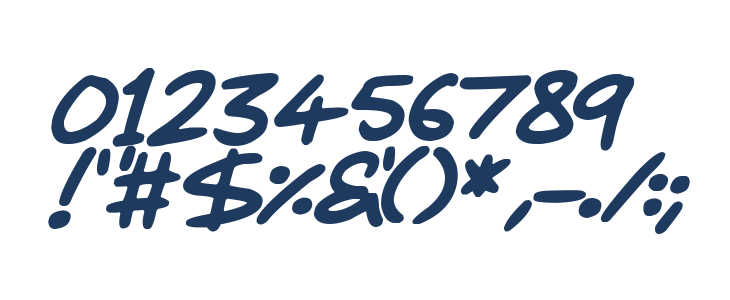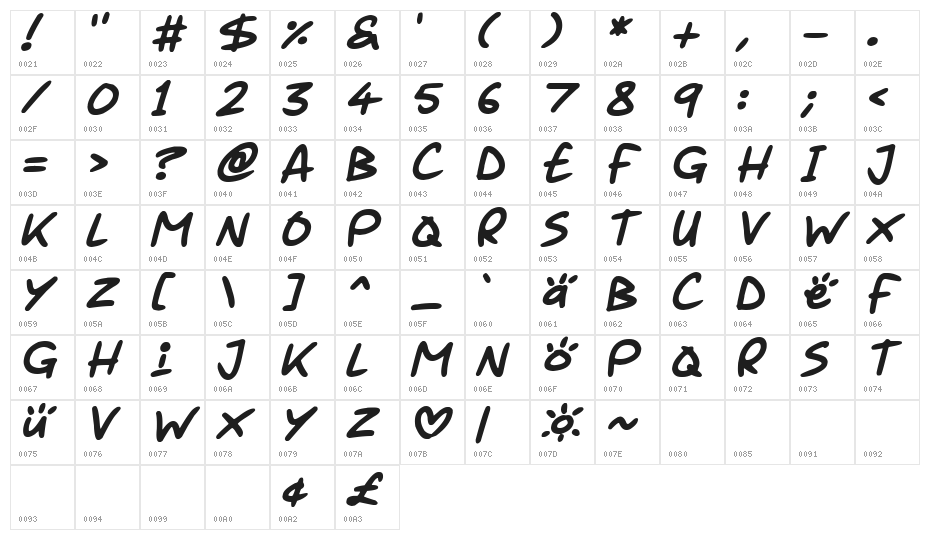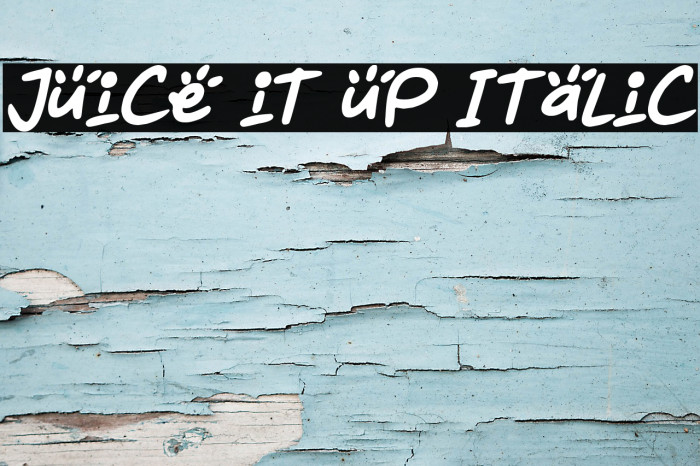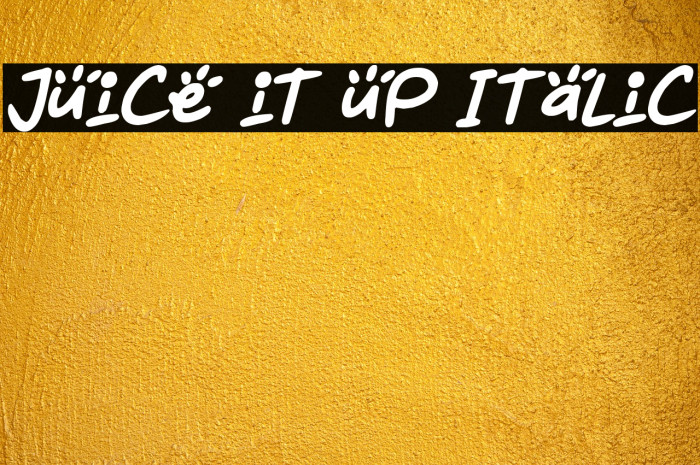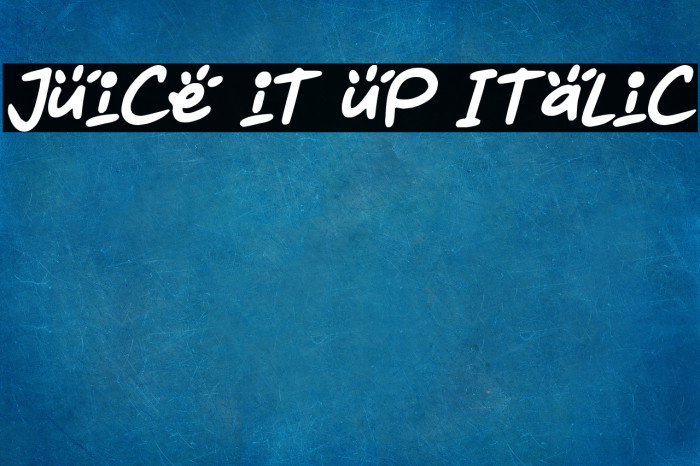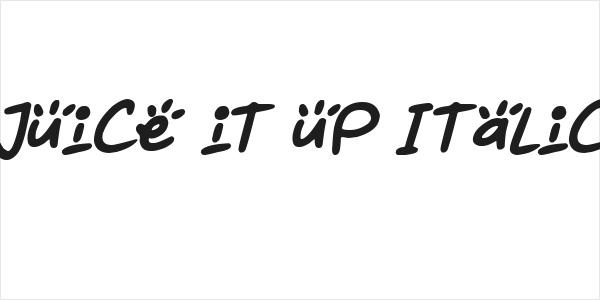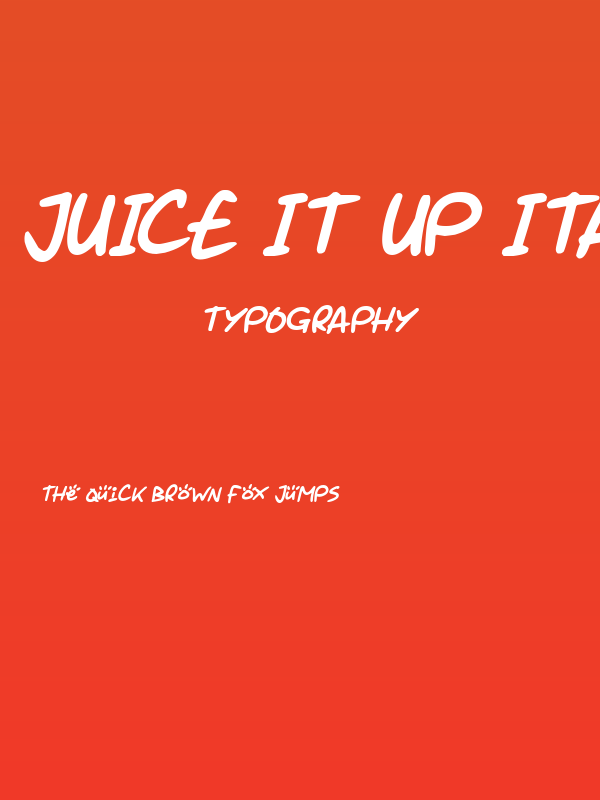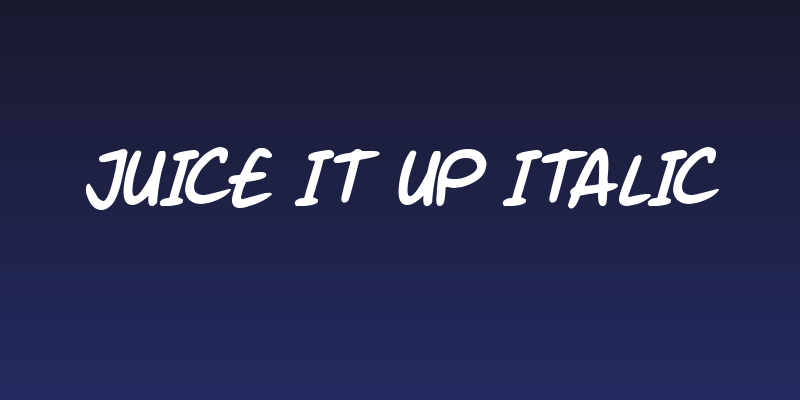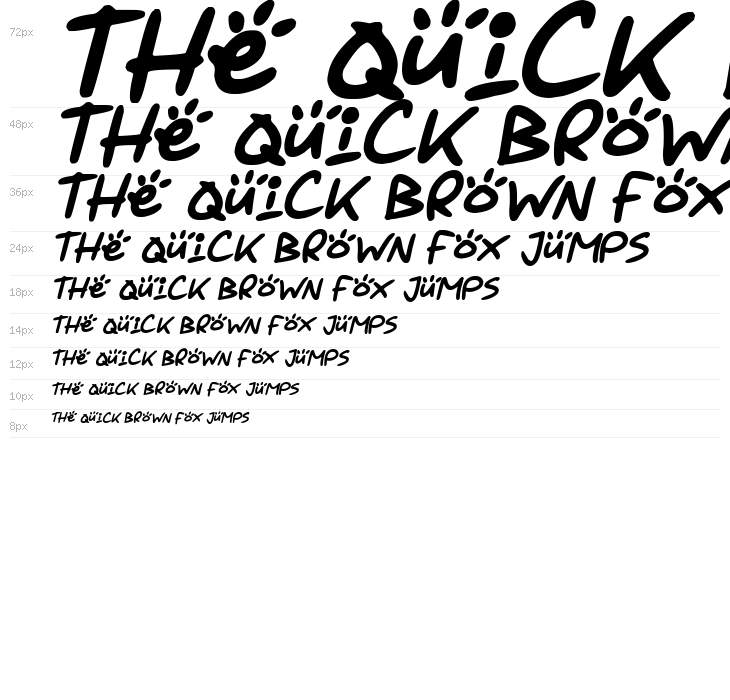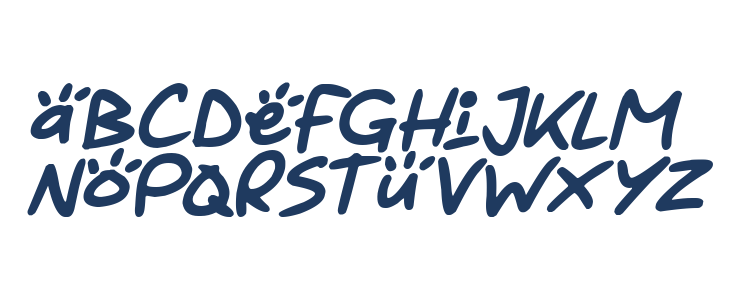
Juice it up Italic Font
Juice it up Italic Description
This font features a playful and energetic style with a handwritten appearance. The letters are slightly slanted, adding a dynamic and informal touch. The strokes are bold and rounded, giving a sense of friendliness and approachability. The font includes a full set of uppercase and lowercase letters, numbers, and a variety of special characters. It also supports accented characters, making it versatile for different languages. The overall look is casual and fun, suitable for projects that aim to convey a lively and youthful vibe.
| Overall Style | Casual, Fun |
| Proposed Projects | Ideal for children's books, playful branding, casual invitations, and social media graphics. |